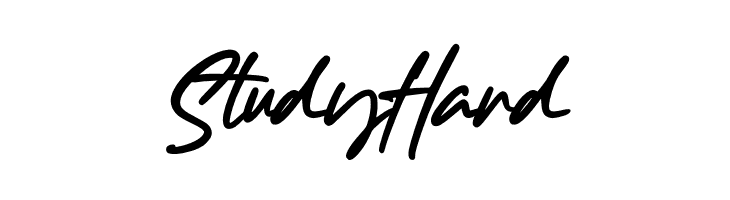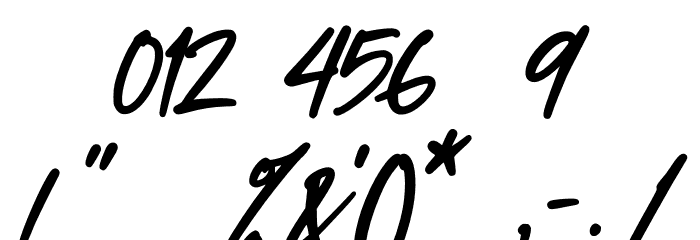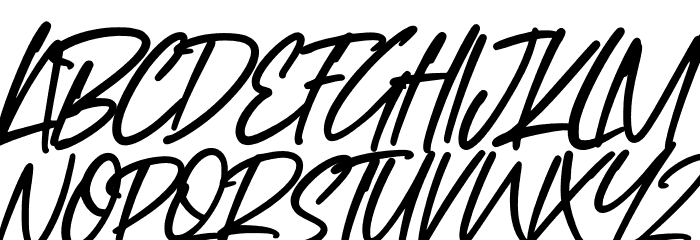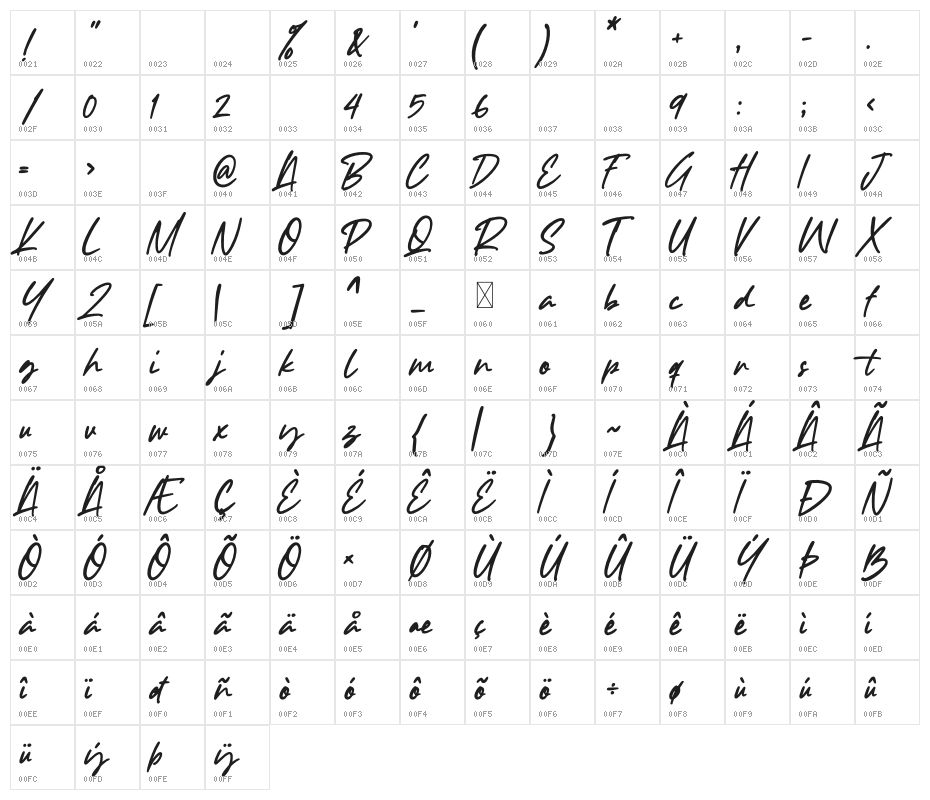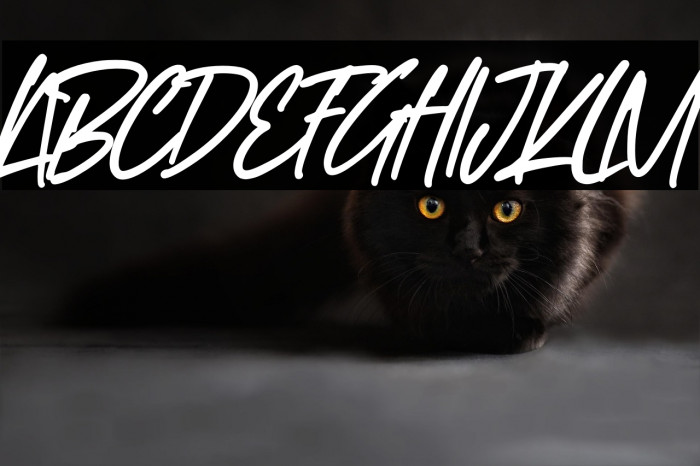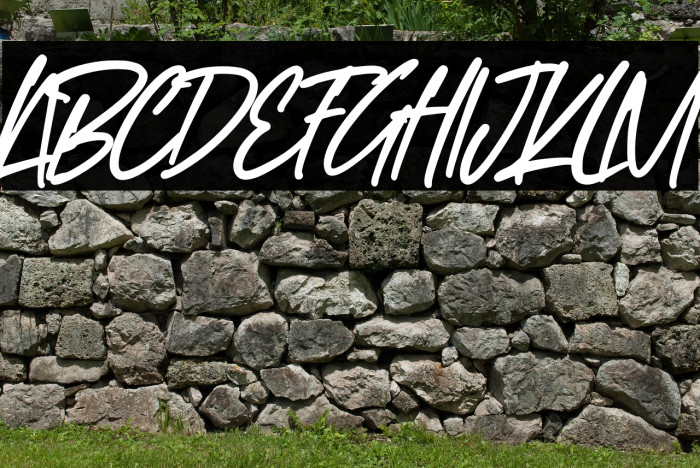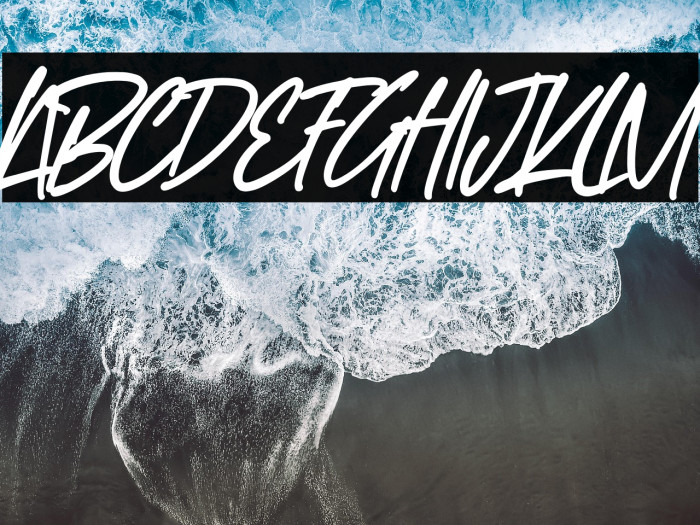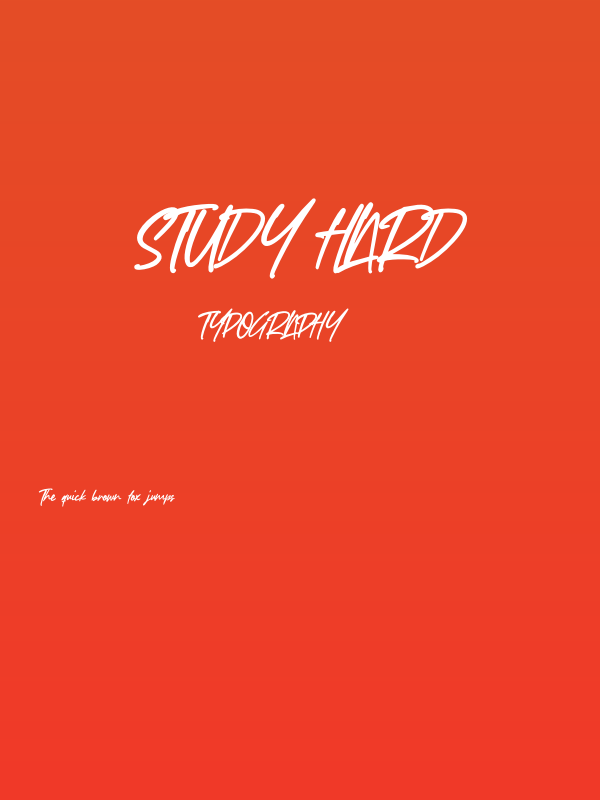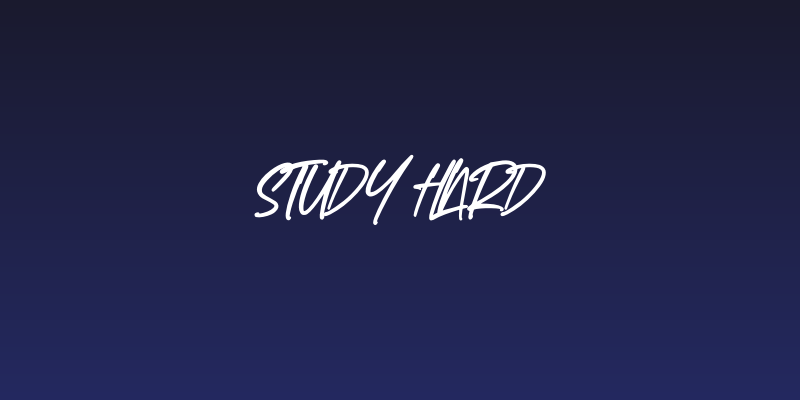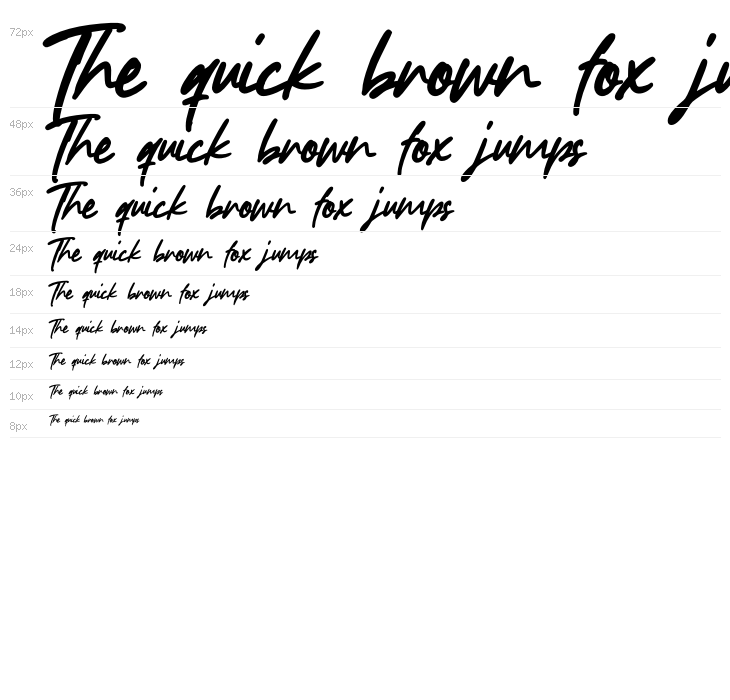
Study Hard Font
Study Hard Description
A dynamic, handwritten script font with energetic, slanted strokes and variable line thickness, mimicking expressive marker or pen writing. The characters are connected and fluid, with a casual, personal feel.
| Overall Style | Decorative, Modern, Casual |
| Use Case | Logos, Headlines, Posters, Social Media |
| Proposed Projects | Personal branding, motivational posters, social media graphics, informal invitations, creative headlines. |